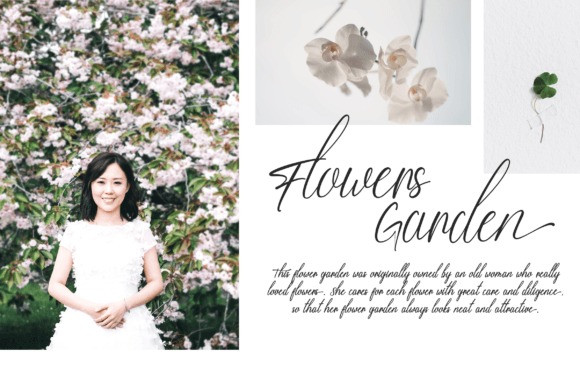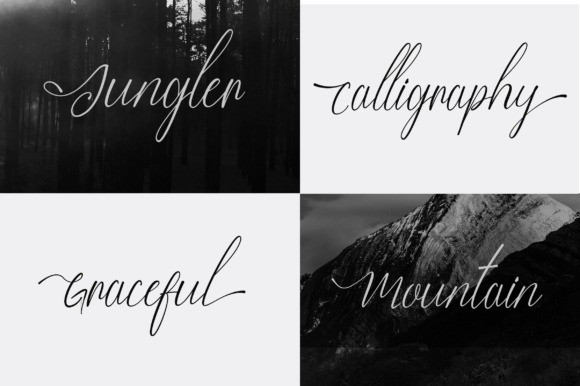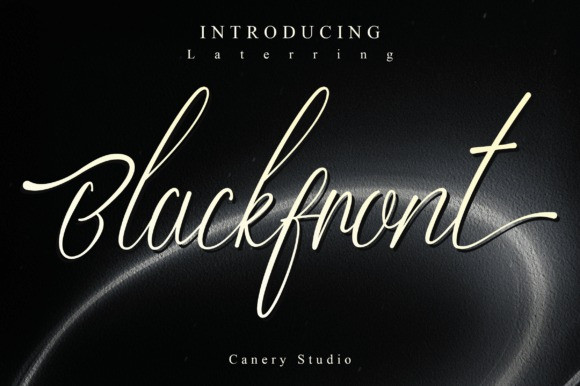
Blackfront Font
Blackfront Font is an elegant and stylish script font that exudes sophistication and class. With its fluid strokes and graceful curves, this font is perfect for adding a touch of luxury to any project. Whether used for wedding invitations, branding, or other design work, this font is sure to impress with its timeless beauty.